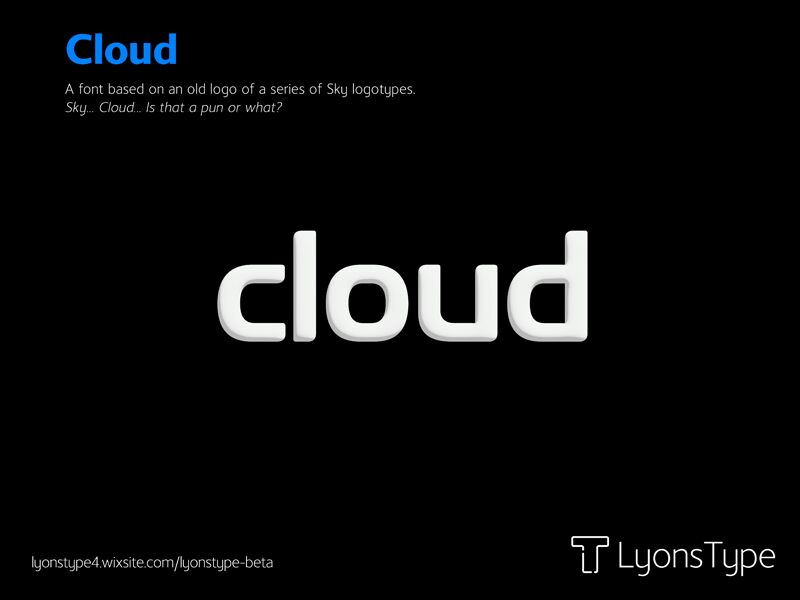
Cloud Regular
Cloud Regular, a masterful creation by LyonsType, elevates the sans serif genre with its modern and uncluttered aesthetic. Its smooth curves and clean lines create an approachable yet refined appearance, making it a versatile choice for various design projects. The font presents a perfect balance of understated elegance and contemporary style.
Its clear readability at all sizes makes it ideal for both digital and print media. Use Cloud Regular to add sophistication to websites, branding materials, editorials, and more. Whether for bold headlines or informative body text, this font adapts seamlessly to different design needs.
Let Cloud Regular breathe fresh air into your creative endeavors with its inviting charm and timeless simplicity.